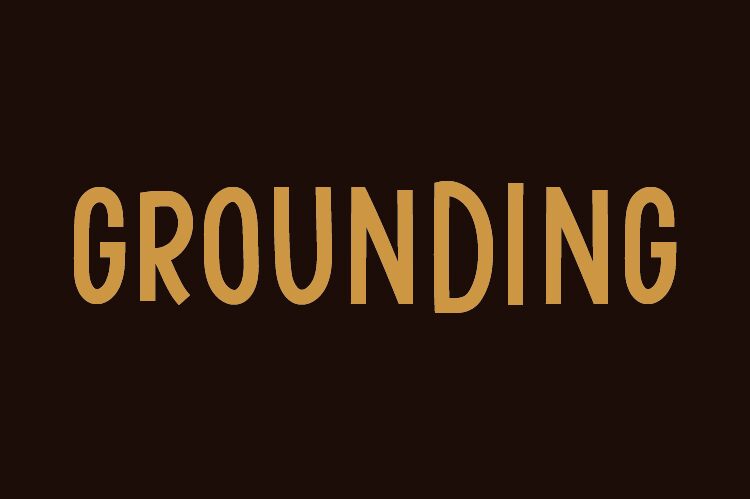
Grounding font by Hanna Bie is a free comic display typeface with a tall, ultra-condensed stance and inky, hand-drawn edges. The letters stack up like skinny posters, giving your words a bold, vertical push while still feeling loose and organic. It’s playful without being childish, with just enough wobble in the strokes to feel human and just enough consistency to stay readable at a glance.
Using Grounding, your headlines punch through crowded layouts-great for zines, comic panels, quirky logos, posters, event flyers, book covers, and bold social graphics. This free font thrives at large sizes, where its stretched silhouettes can really breathe. Pair Grounding with a clean, neutral sans serif for body text to balance its lanky personality and keep your designs fun but legible.